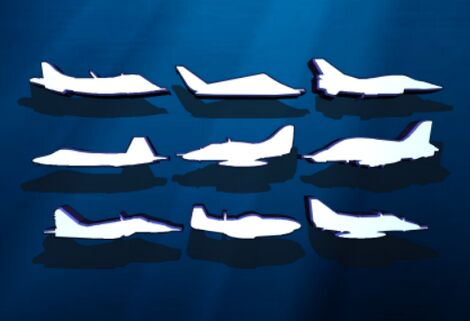
Air Force II Solid by Iconian Fonts is not just a typeface but a tribute to the sleek precision of military aviation. As a dingbat font, it transcends traditional letterforms, instead offering an array of fighter jet icons that exude strength and dynamism. The solid, unyielding lines reflect the robustness of military engineering, making each character not only a symbol but also a statement.
The font’s military styling is unmistakable, with each glyph capturing the essence of fighter jets in meticulous detail. This makes Air Force II Solid an exceptional choice for projects that require an air of authority and power – from thematic event invitations to branding materials for defense-related industries.
Whether you’re looking to create impactful graphics for an aerospace publication or seeking strong visual elements for a video game interface, Air Force II Solid offers versatility while maintaining its bold aesthetic appeal. Its distinctive style ensures your creative endeavors will soar with professionalism and intensity.